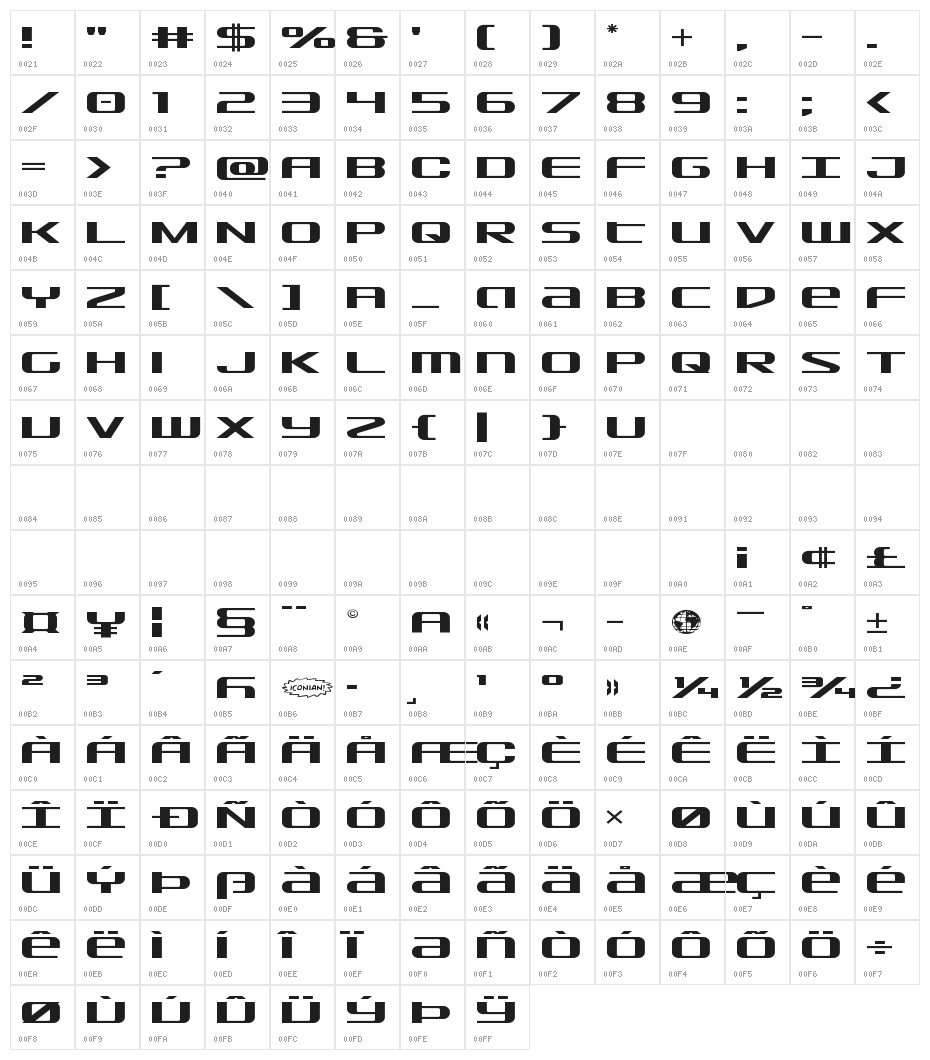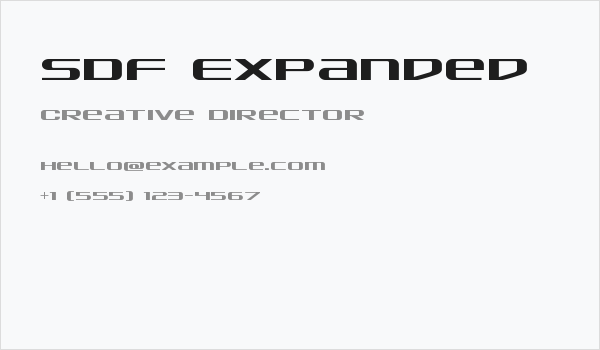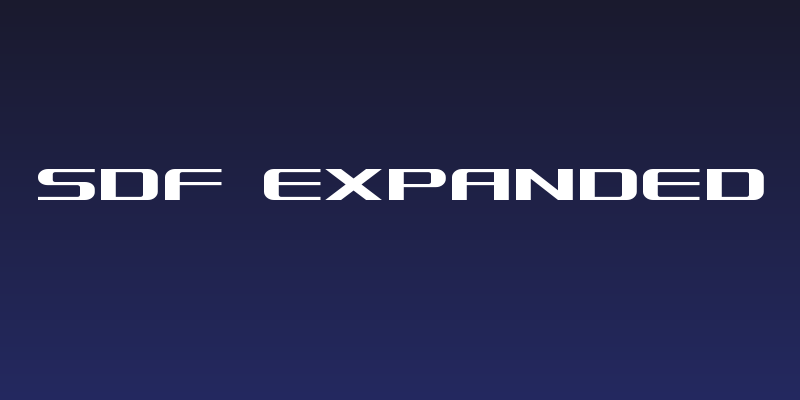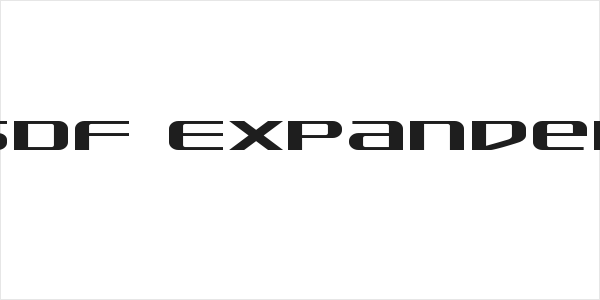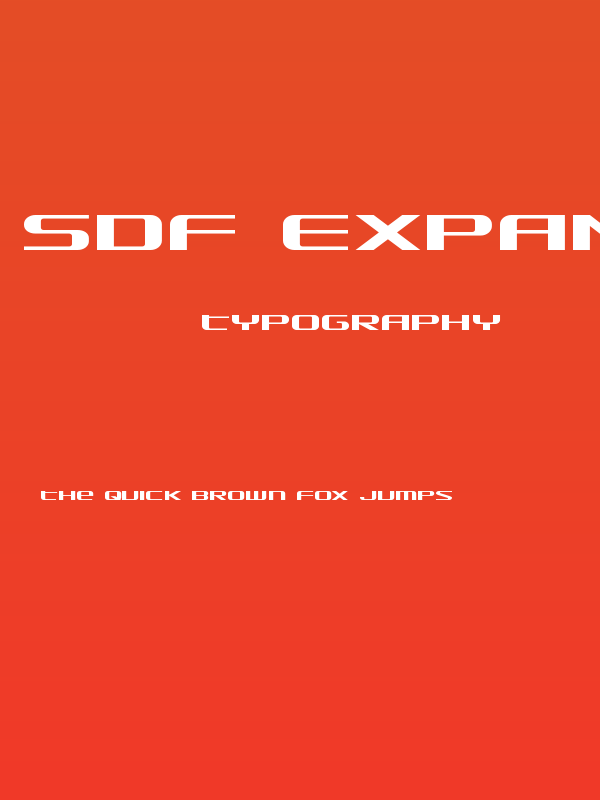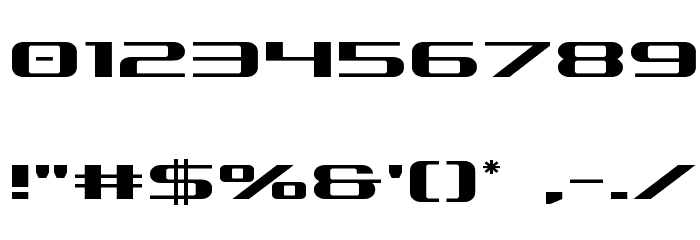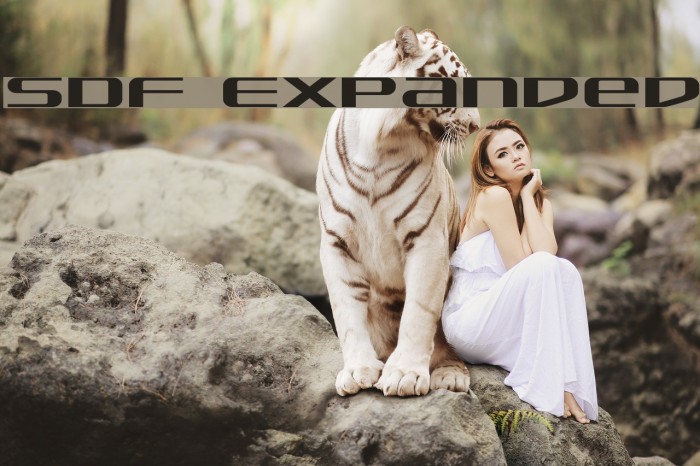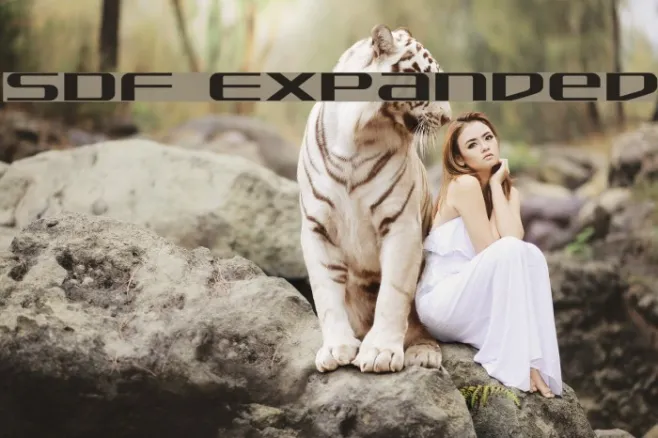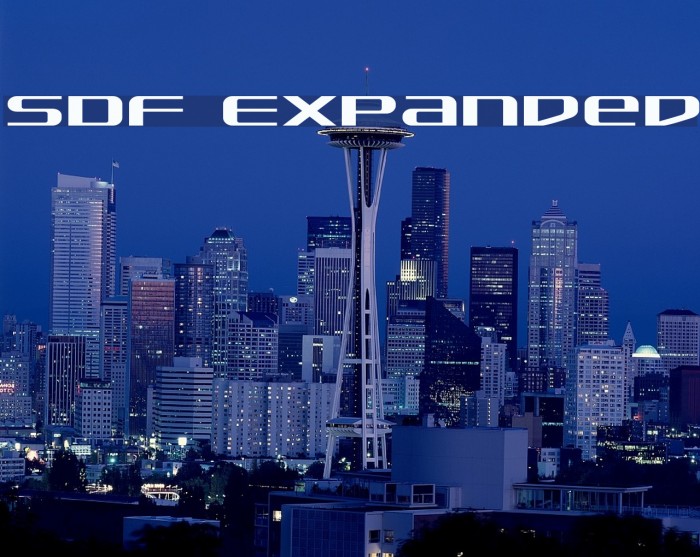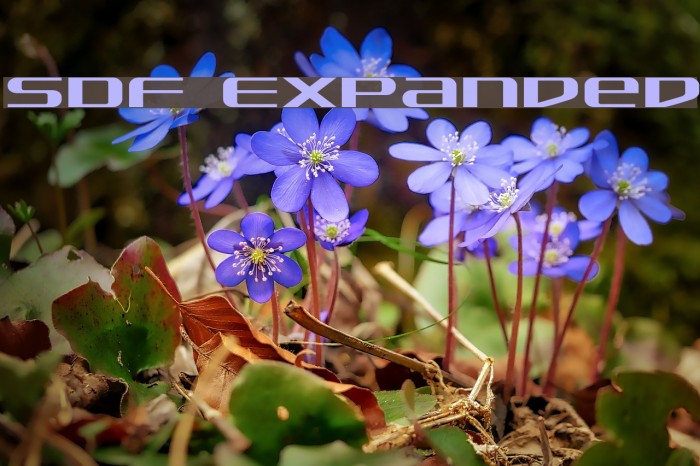
SDF Expanded Font
SDF Expanded Description
This font features a futuristic and geometric design, characterized by its bold and angular letterforms. The uppercase and lowercase letters maintain a consistent style, with sharp edges and a streamlined appearance. The numerals are equally bold, with a uniform height that aligns with the uppercase letters. Special characters are designed to match the overall aesthetic, providing a cohesive look across all glyphs. The font's expanded width gives it a commanding presence, making it ideal for attention-grabbing headlines or display purposes. Its modern and sleek style is well-suited for projects that require a contemporary and cutting-edge look.